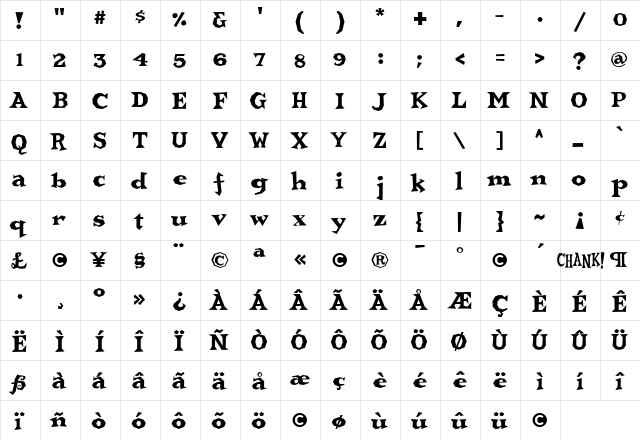
Bonehead Medium Font Preview
Bonehead Medium
Design Context for Bonehead Typeface
Bonehead is a composed and adaptable typeface that performs quietly and consistently across a wide range of design contexts.